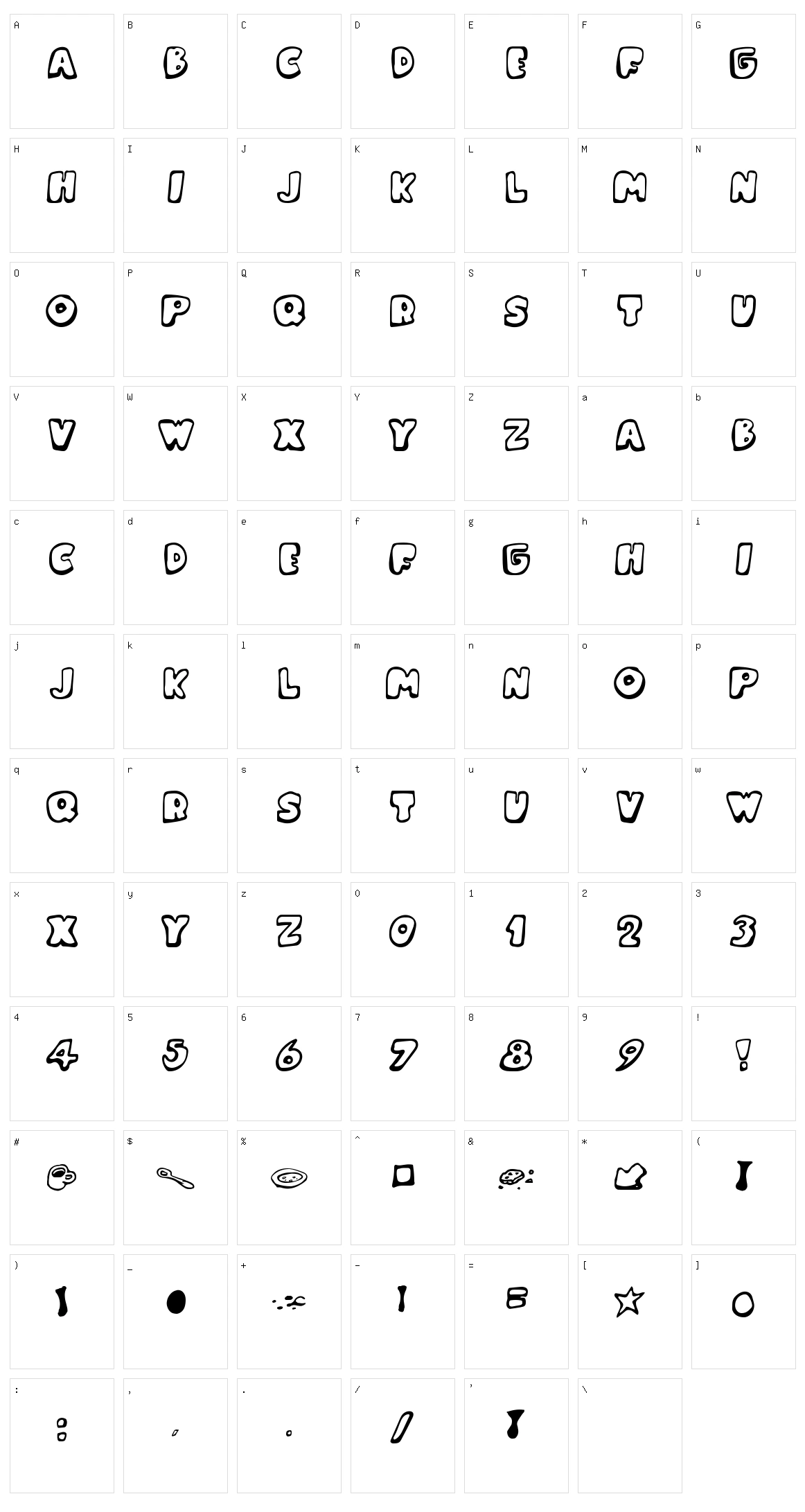
The free font Messy Fika is carefully designed by Viktor Örneland, showcasing a thoughtful balance of creativity and usability and falls under the Cartoon font style. When you download the ZIP file, it contains only 16.84 KB of font files, making it lightweight and quick to download. Please review the license details below to understand permitted usage and distribution rights. If license information is not available, we recommend using this font for personal projects only or contacting the author directly for commercial usage permissions.